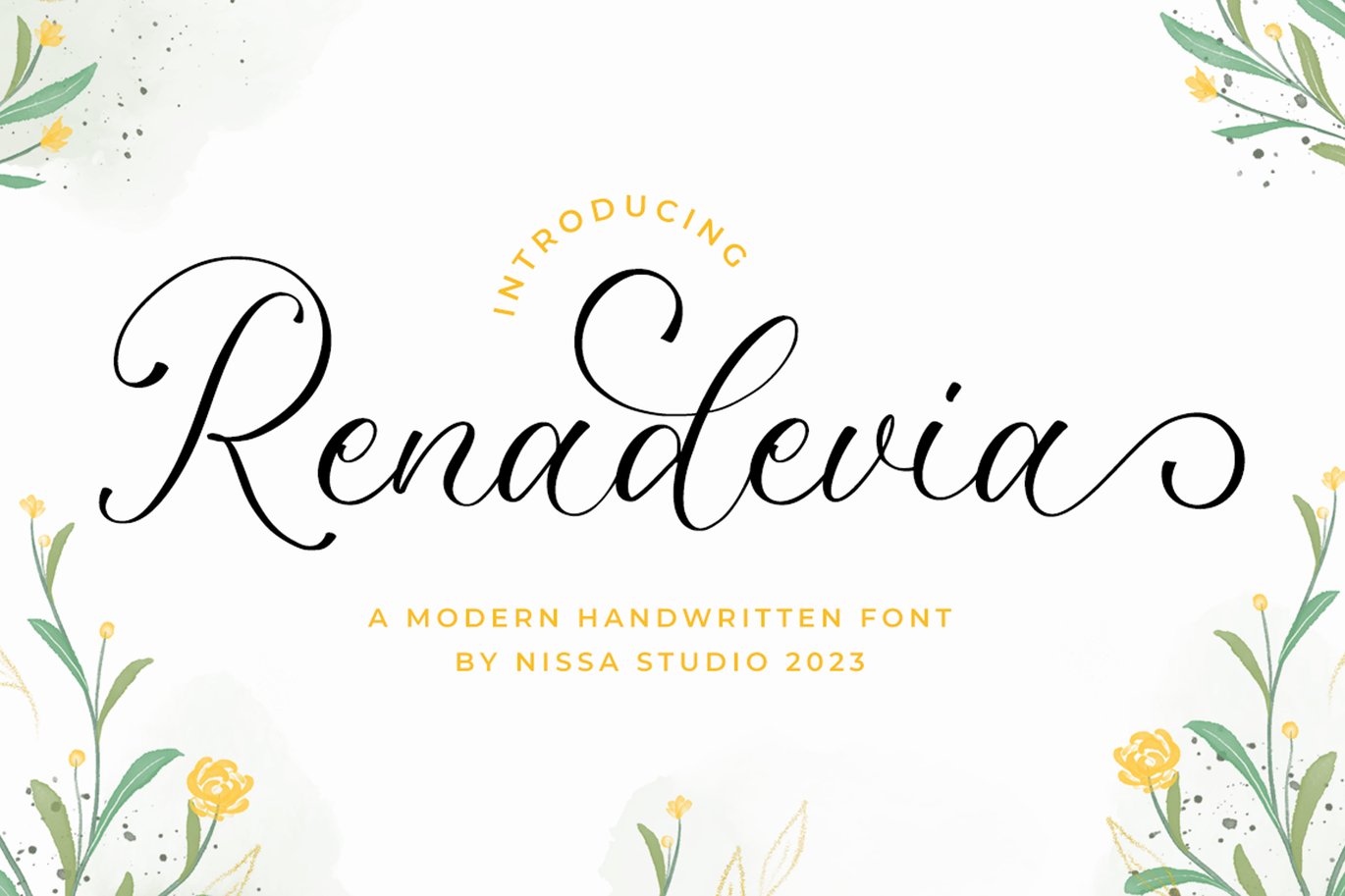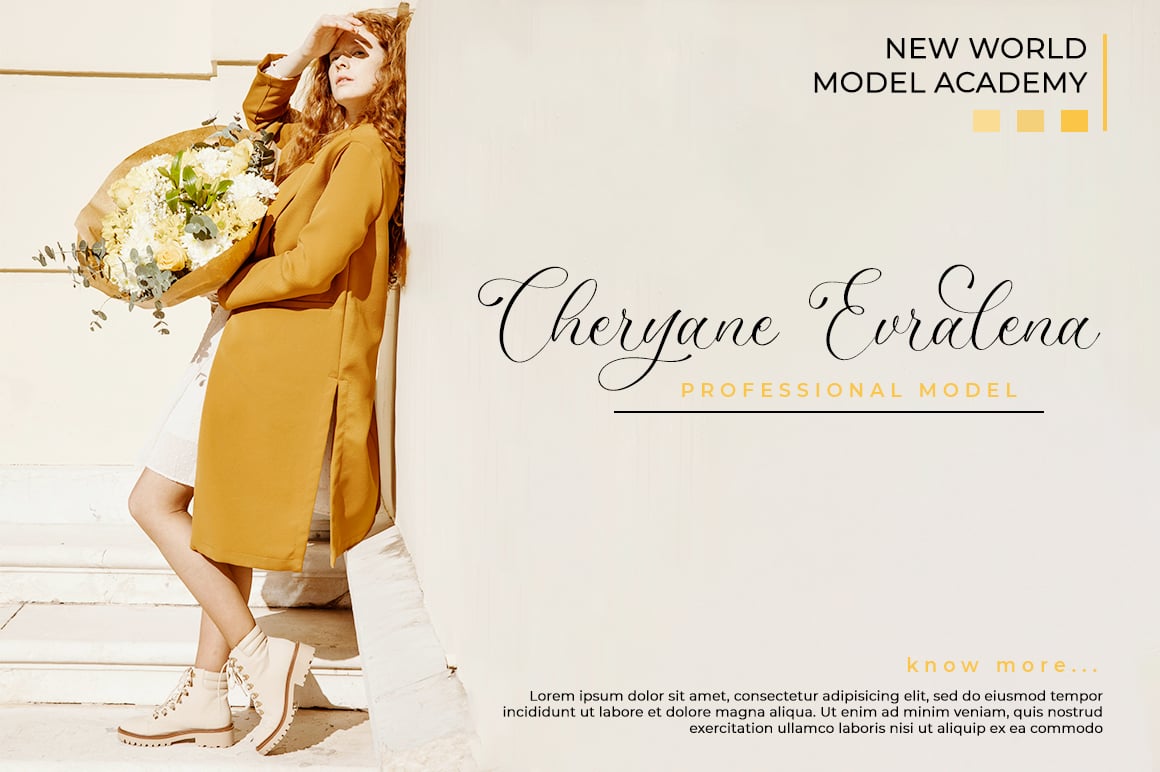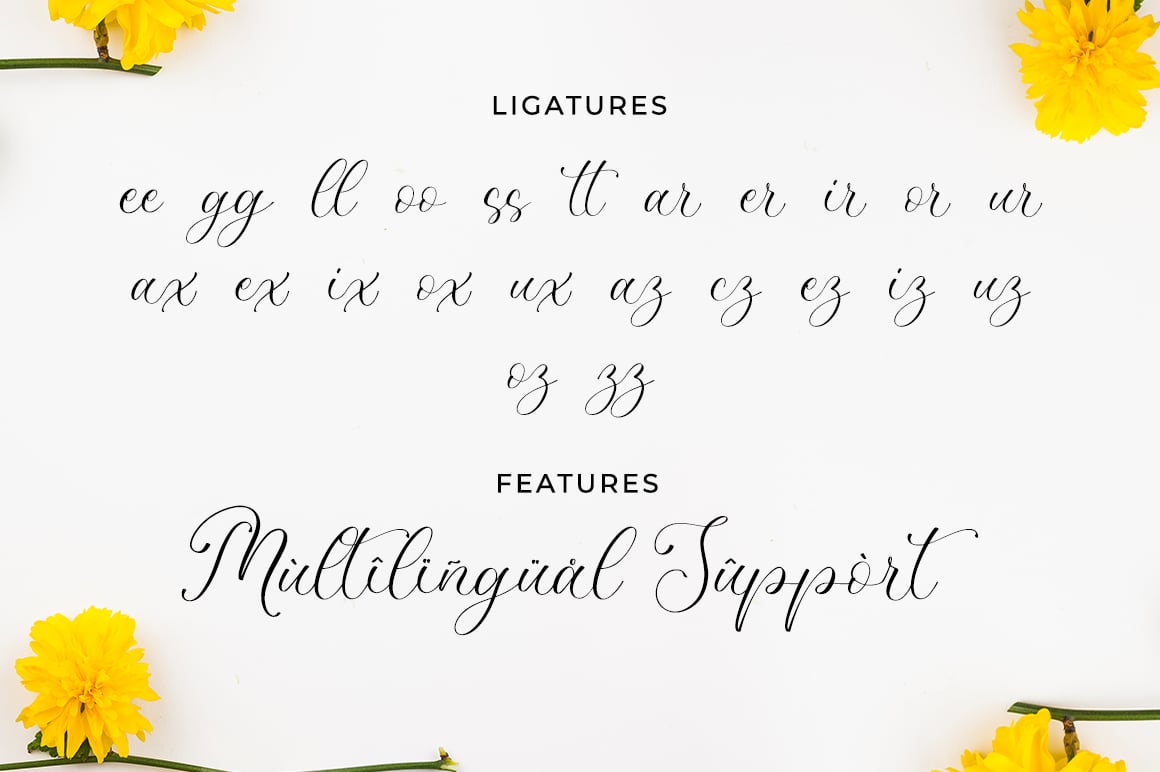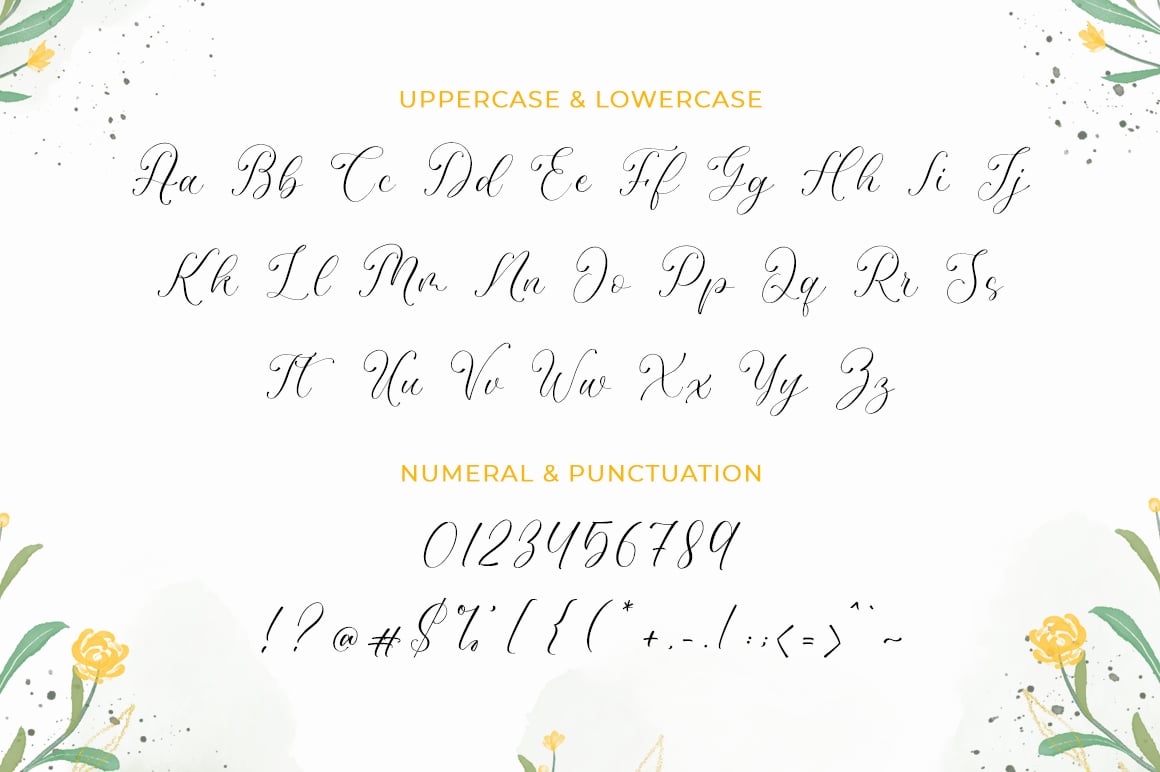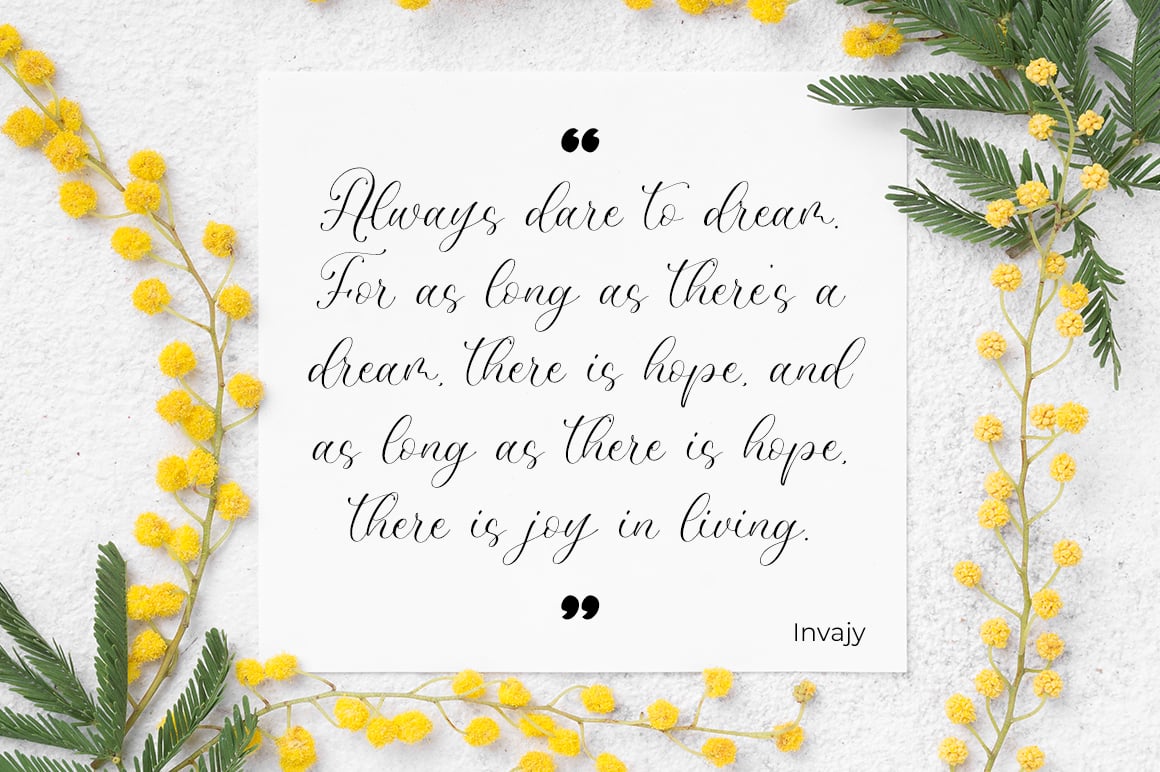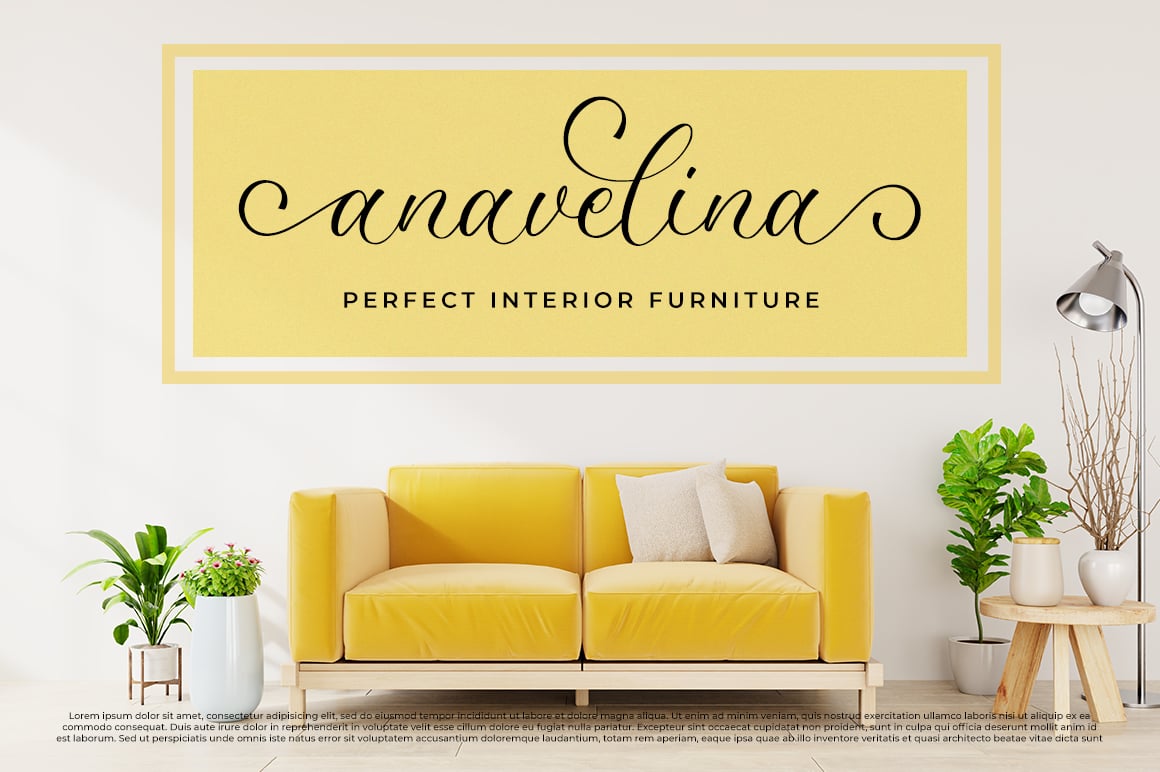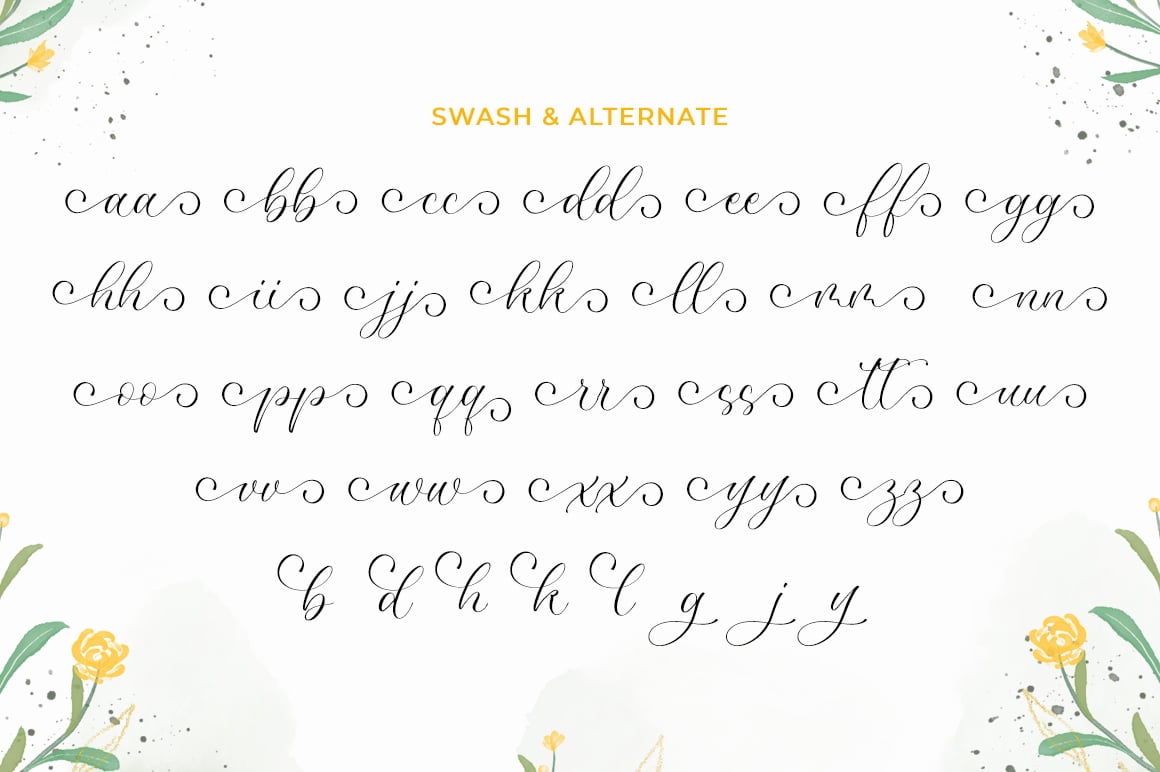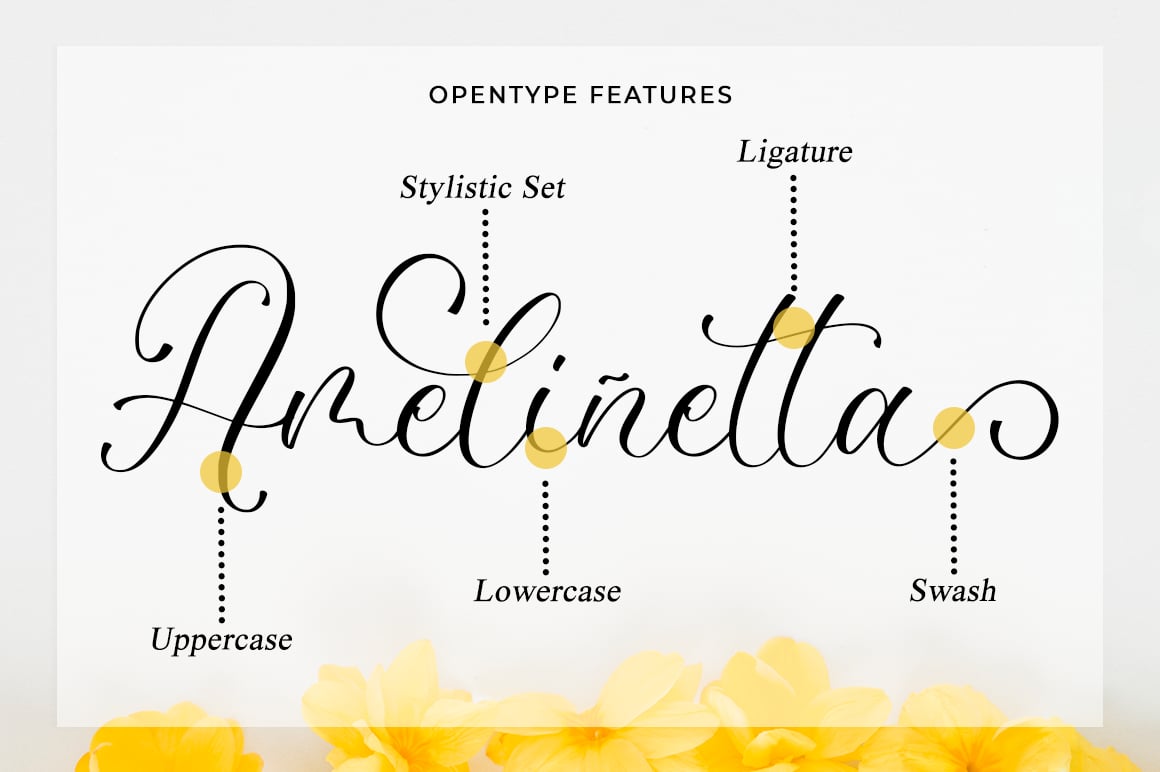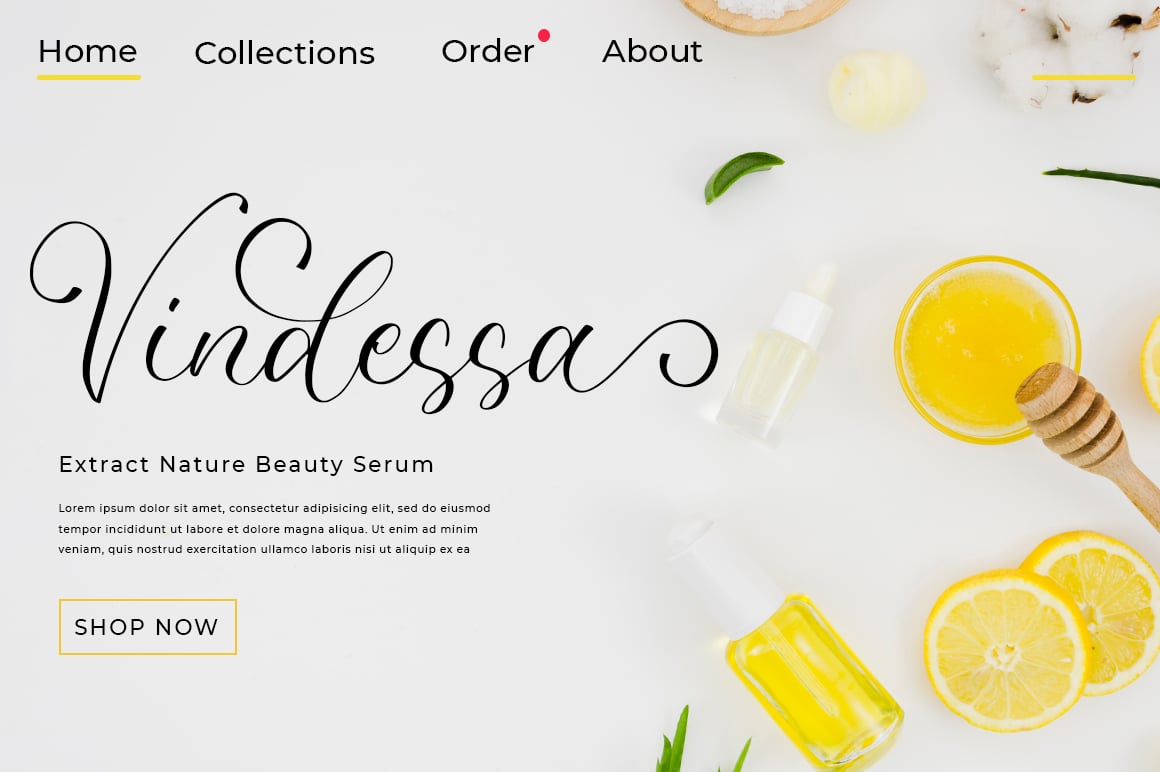
Renadevia – Wedding Font
Renadevia is a lovely and delicate script font that exudes elegance and class. This font is perfect for those who need a beautiful and refreshing look to their designs.
Each Font Has:
- Modern Handwritten Font
- Beautiful Swash (Ending tail)
- Beautiful Titling (Beginning tail)
- Special Ligatures